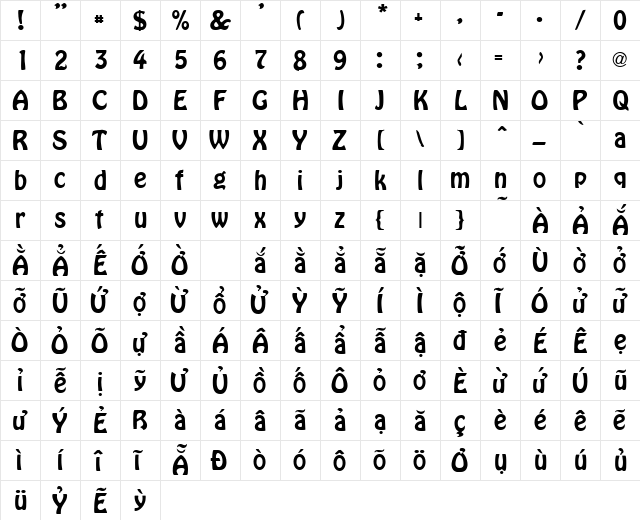
VPS Go Cong Regular
VPS Go Cong takes a measured approach to typography — its balanced proportions and neutral character make it a reliable workhorse for both digital and print work.